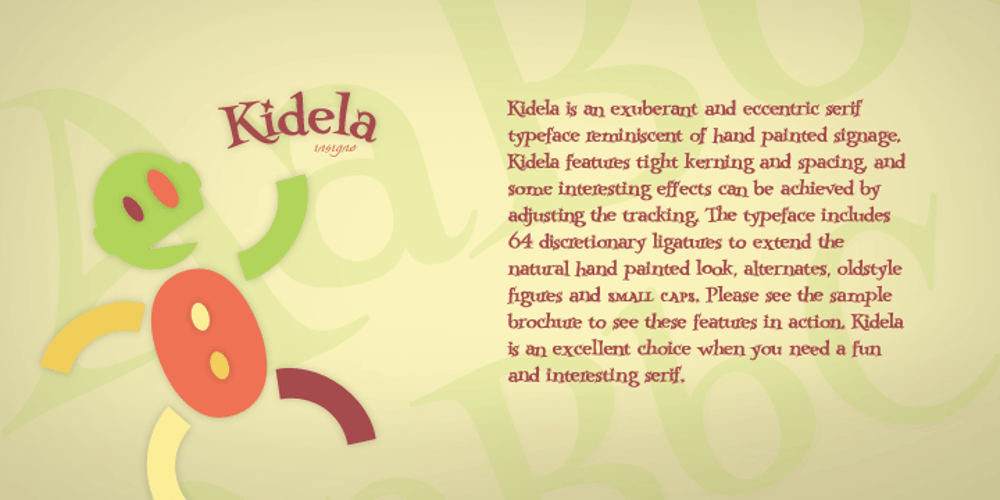
Kidela Font Family was designed by Jeremy Dooley and published by insigne. Kidela contains 4 styles and family package options. Kidela is an exuberant and eccentric serif typeface reminiscent of hand painted signage. Kidela features tight kerning and spacing, and some interesting effects can be achieved by adjusting the tracking. The typeface includes 64 discretionary ligatures to extend the natural hand painted look, alternates, oldstyle figures and small caps. Please see the sample brochure to see these ligatures in action. Kidela is an excellent choice when you need a fun and interesting serif.